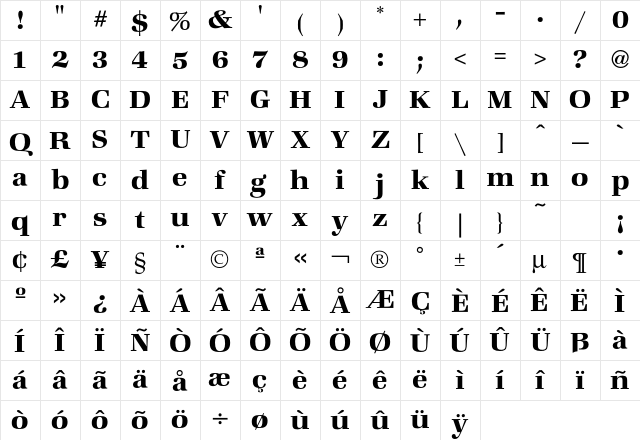
Zapf Demi
Style: Demi
Complete Zapf Demi glyph index. Displaying only characters natively supported by Zapf Demi font.
Design Context for Zapf
Zapf is a composed and adaptable typeface that performs quietly and consistently across a wide range of design contexts.